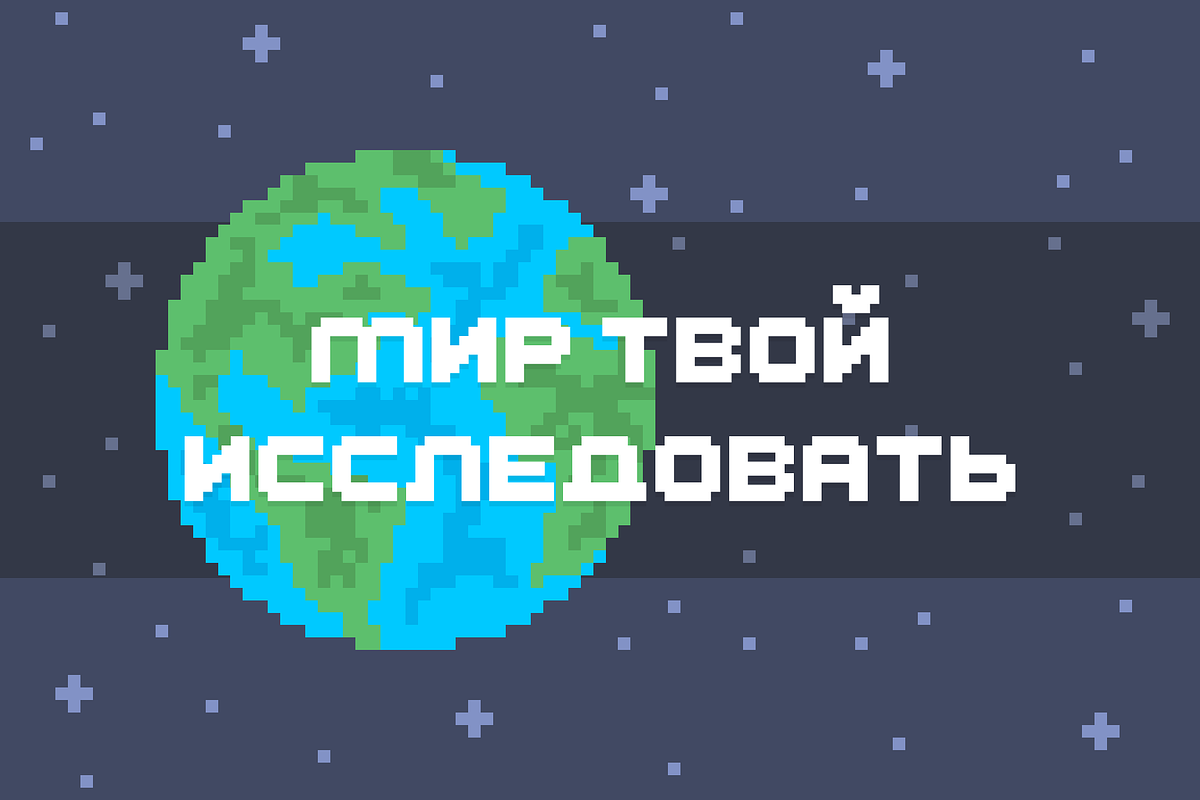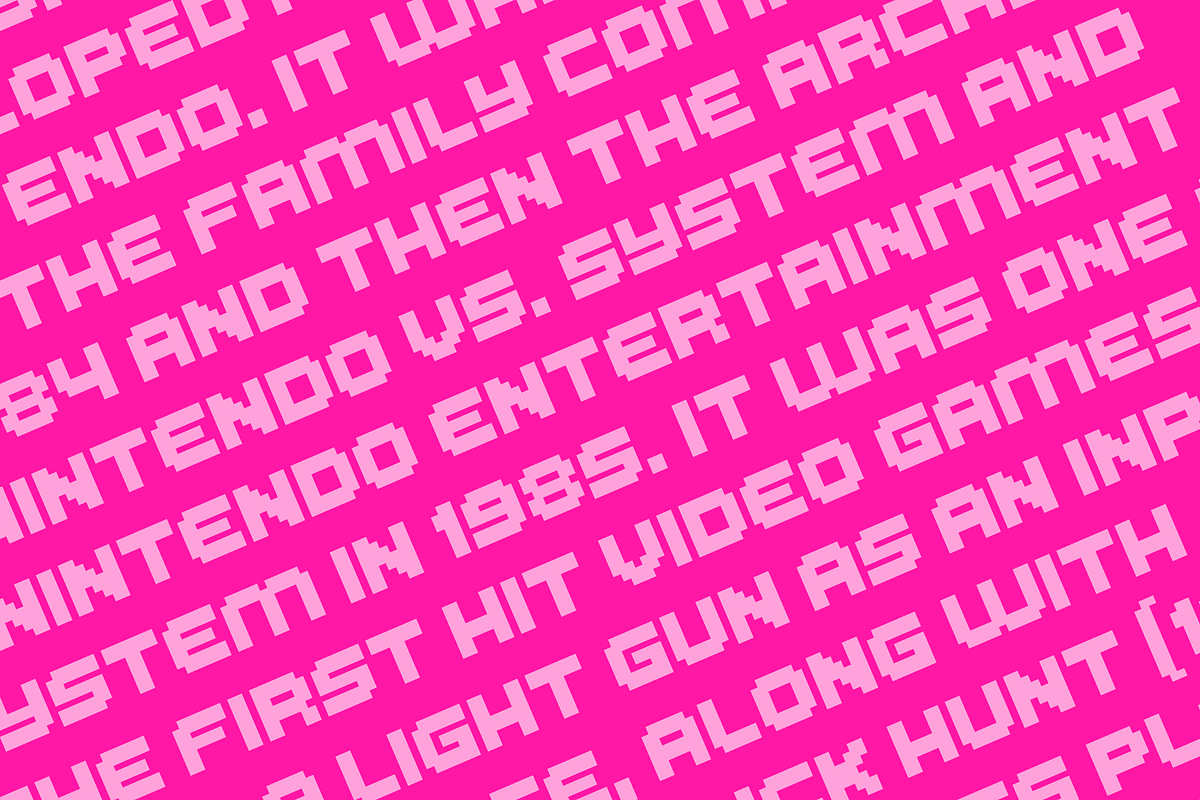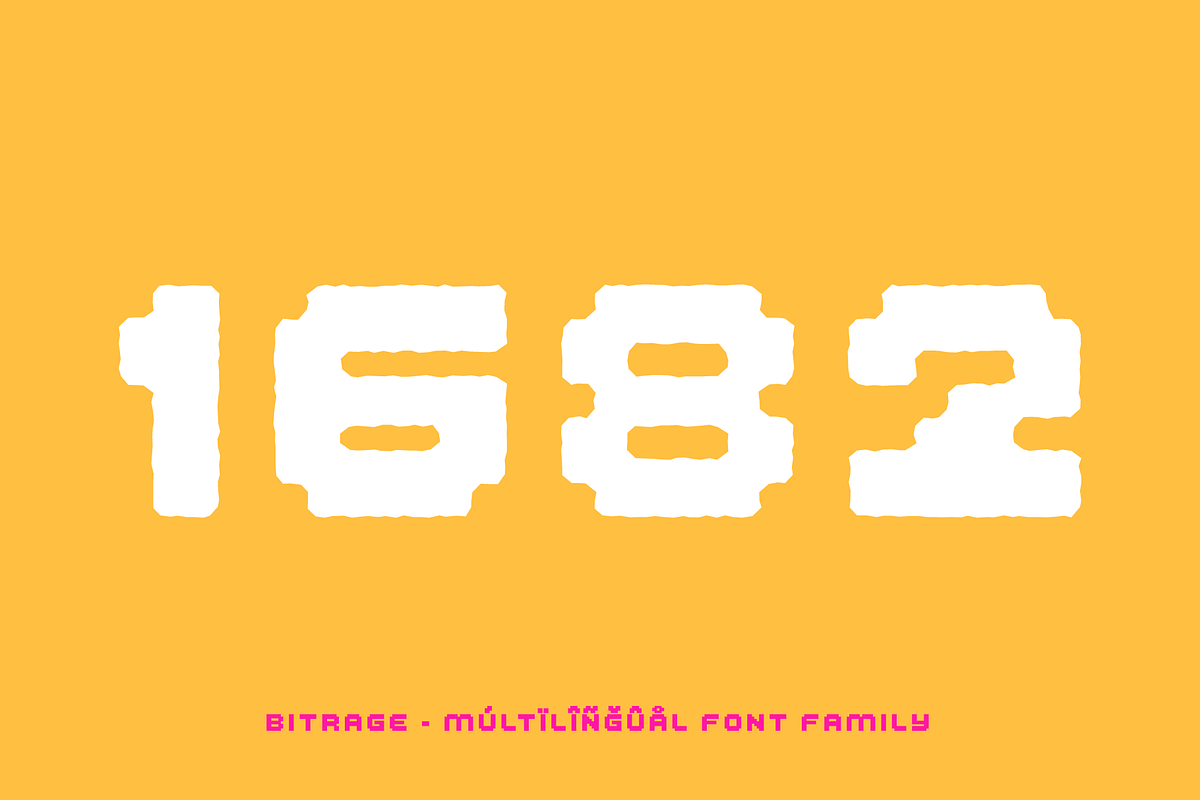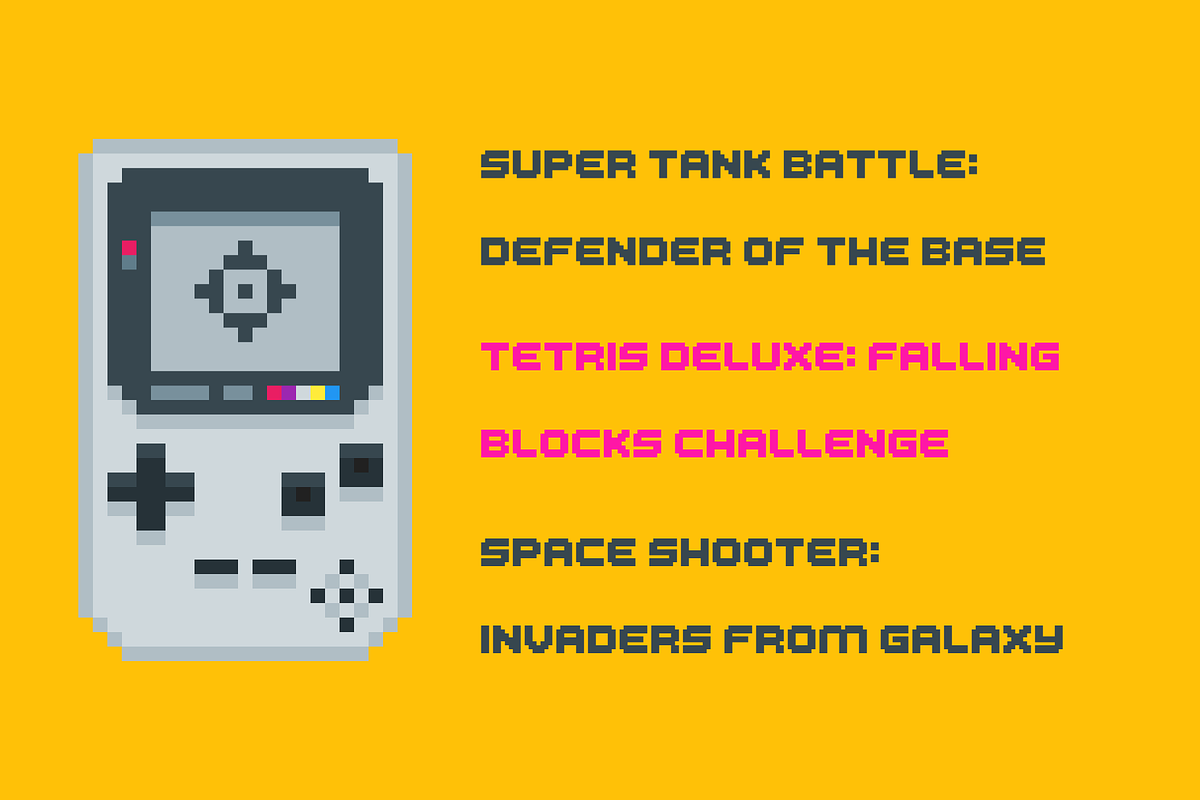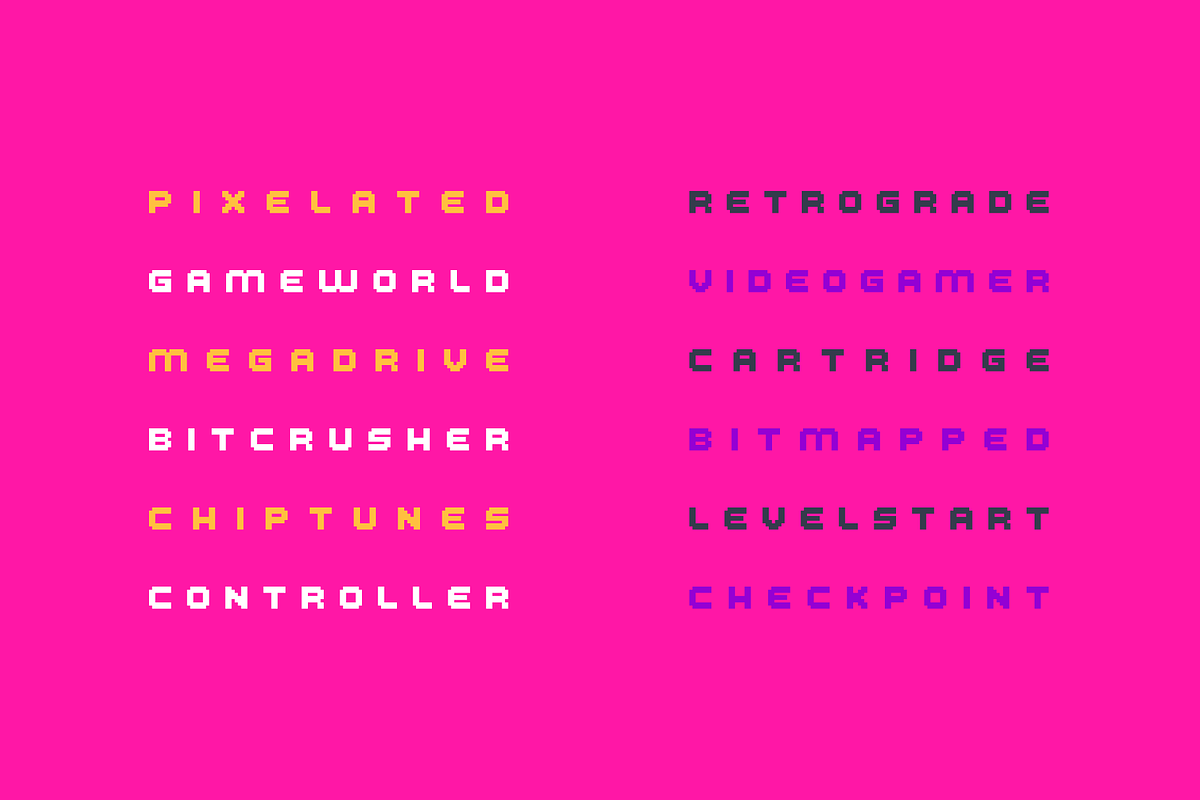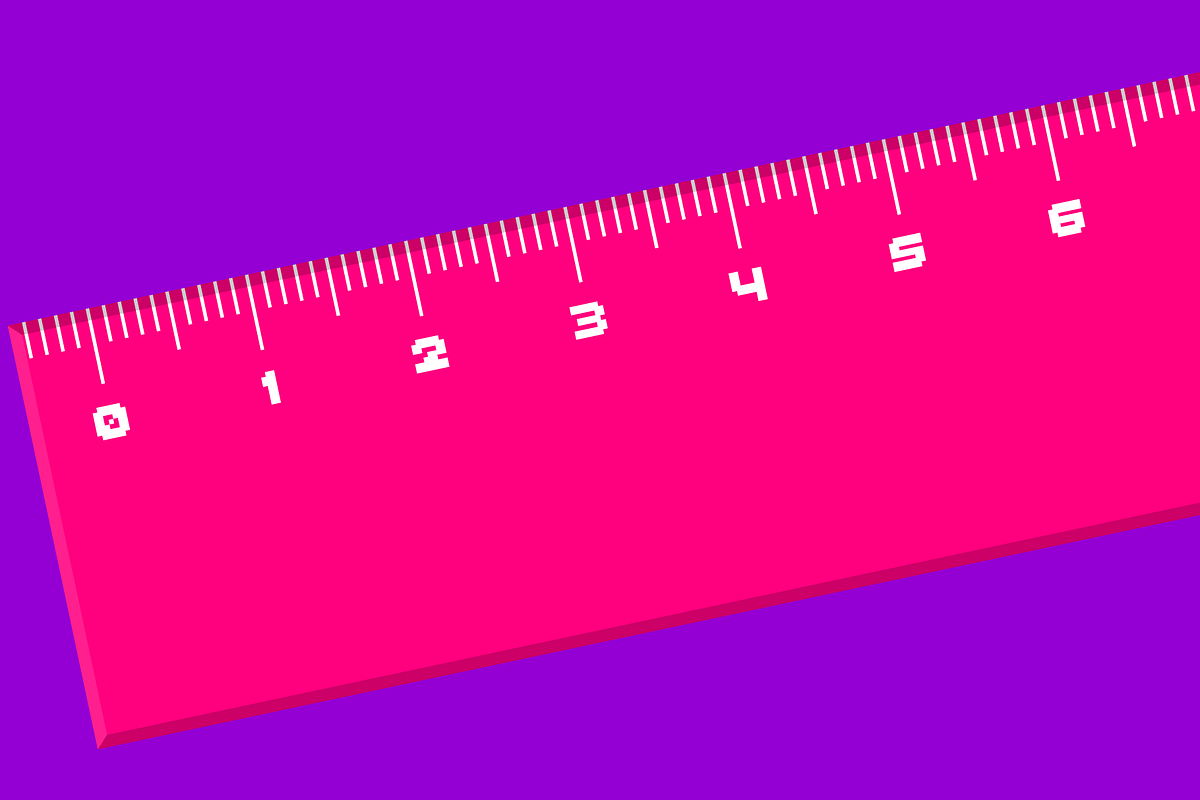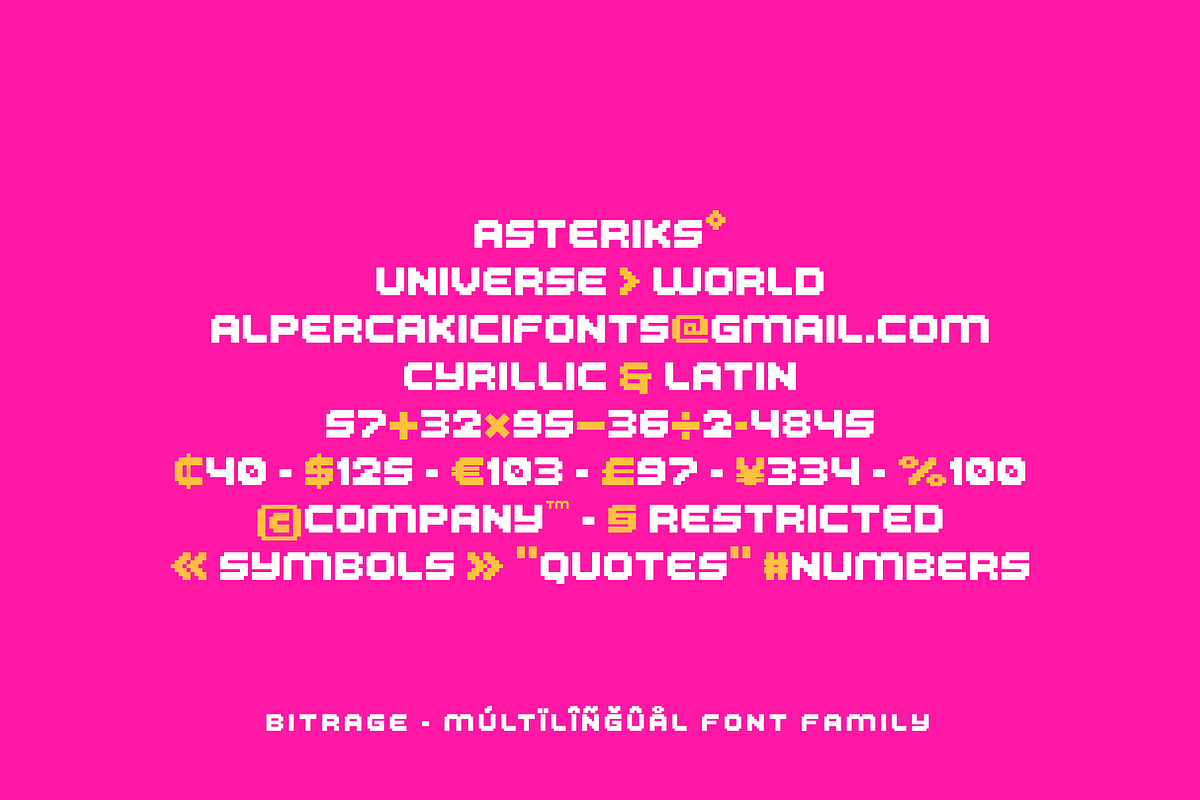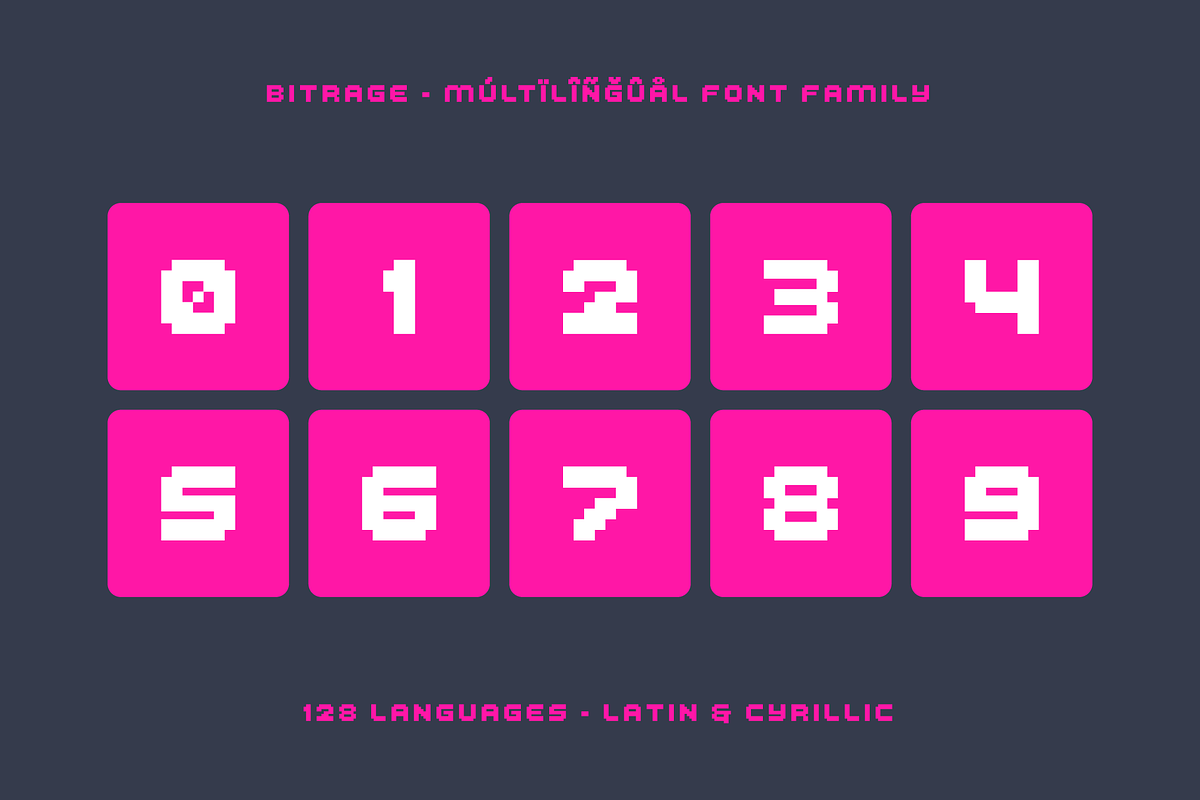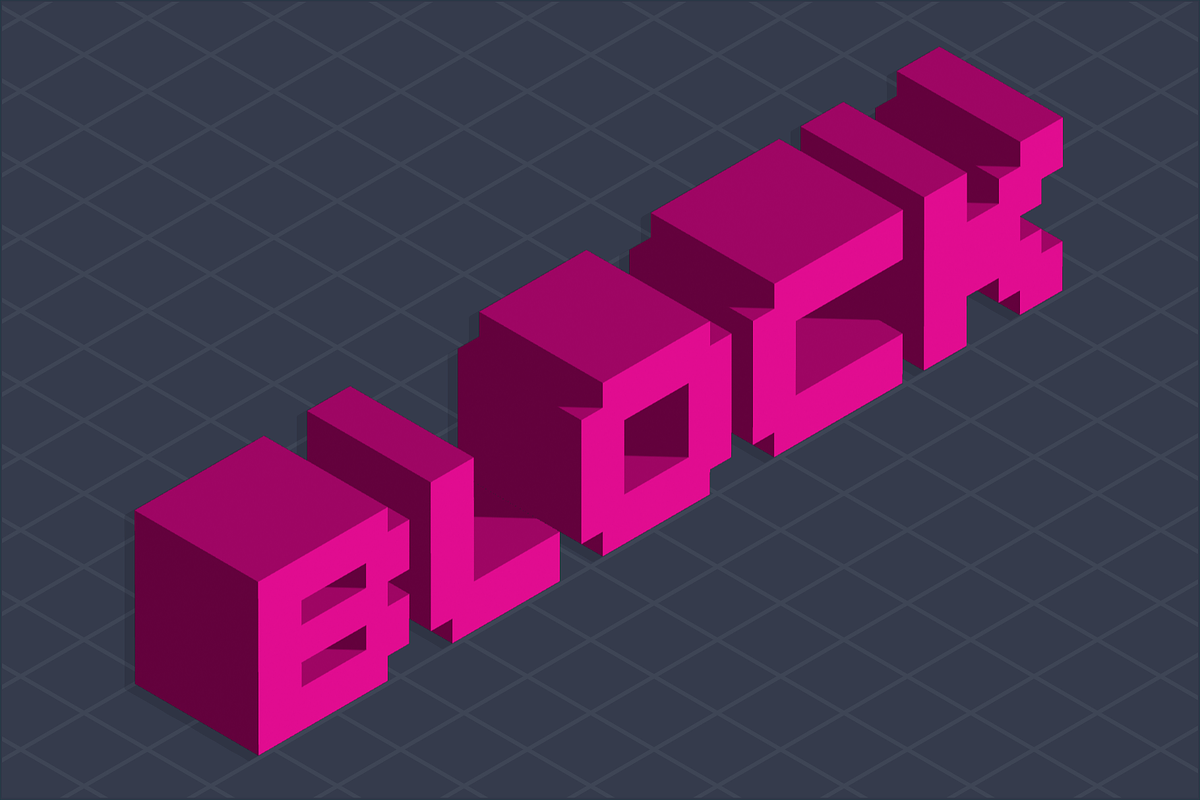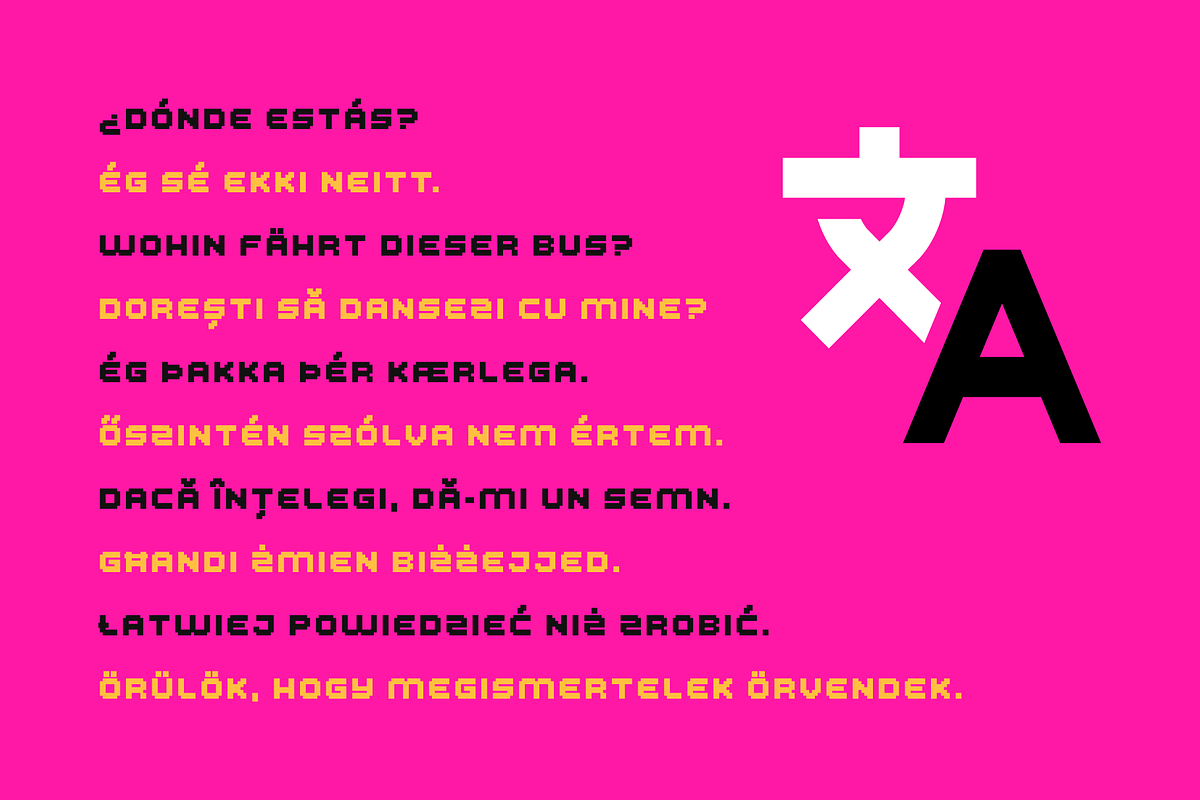
Bitrage Cyrillic Pixel Typeface
Bitrage is a bold pixel typeface built for impact and texture-rich expression. Blending retro digital aesthetics with handcrafted imperfections, it delivers a striking balance between structure and grit. Designed across an extensive family of 118 styles, Bitrage explores a wide spectrum of visual moods—from aged, chalky, and grainy textures to clean inline, outline, and rounded forms.
Each style is carefully crafted to retain crisp pixel geometry while introducing organic distortions like rough, rusty, hazy, and sketchy finishes. The Circular and Rounded subfamilies soften the rigid grid, offering versatility for both futuristic and playful compositions. Italics add dynamic motion, while variants like Rimmed, Pencil, Traced, and Worn expand creative possibilities.
Supporting both Latin and Cyrillic languages, Bitrage is ideal for posters, game design, branding, UI, experimental typography, and bold editorial layouts. Whether you’re aiming for nostalgic arcade vibes or modern glitch-inspired visuals, Bitrage provides a powerful toolkit to push pixel typography further.